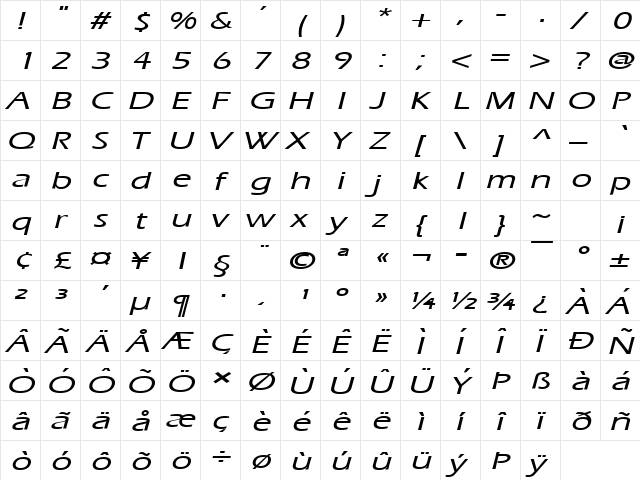
Eric Extended Italic
Design Context for Eric Extended Typeface
Eric Extended offers clean, dependable letterforms without strong stylistic allegiance, making it a practical choice for designers who need flexibility. The slanted form adds forward momentum and visual energy.
Pro Tip: Use Eric Extended for emphasis, pull quotes, and subheadings where its slanted energy can add rhythm to the layout.